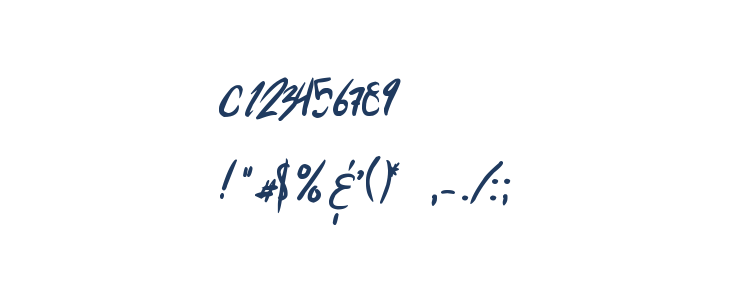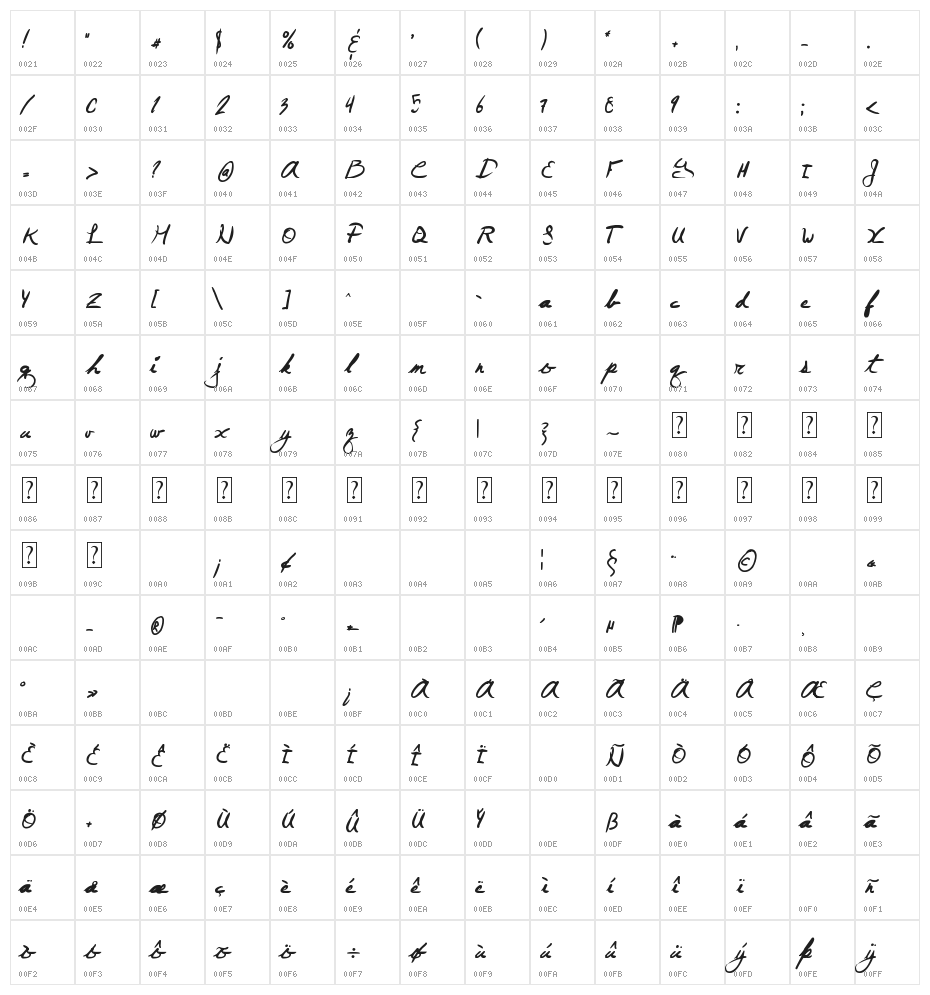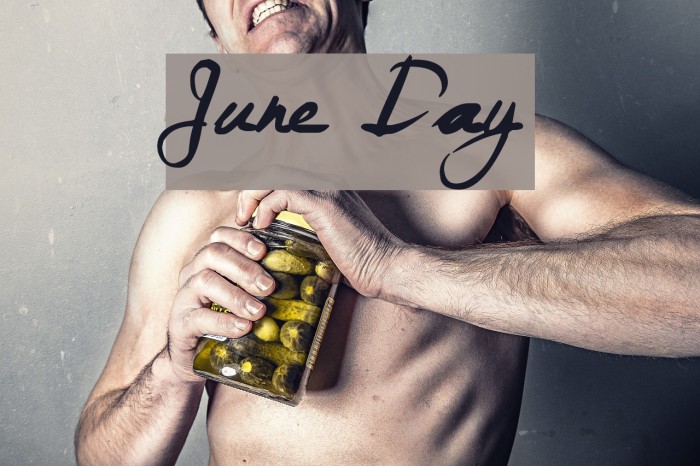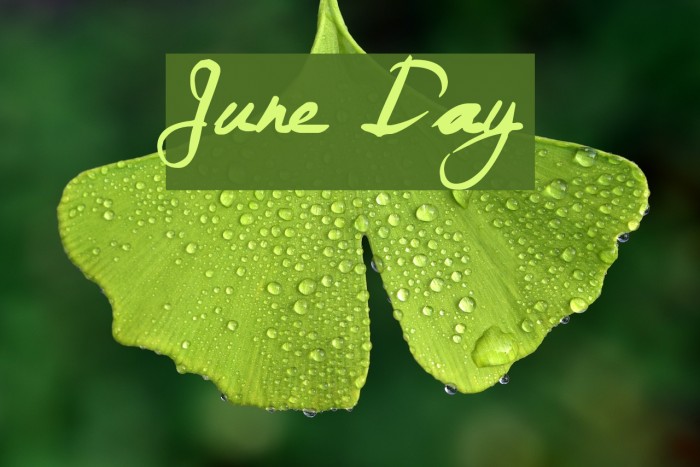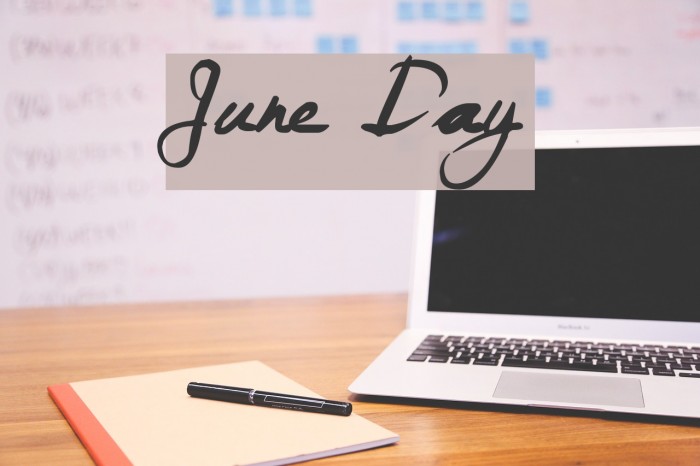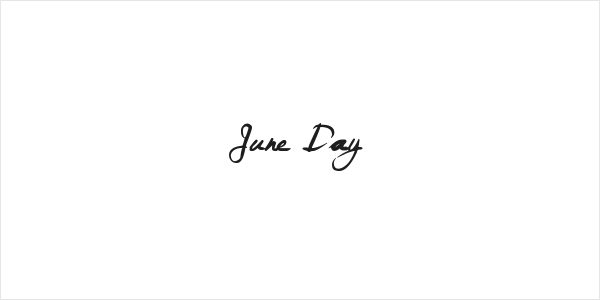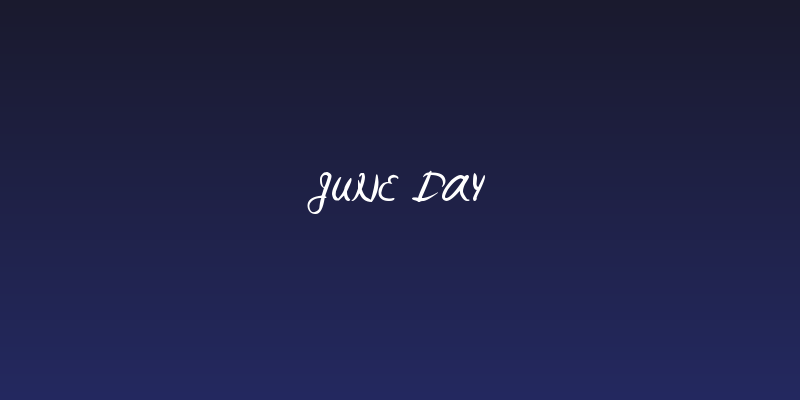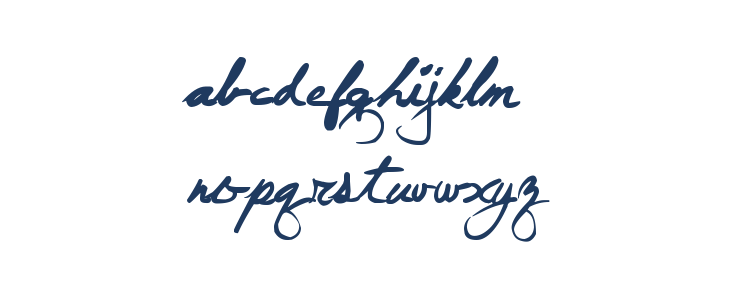
June Day Font
June Day Description
This font exudes a dynamic and expressive style, characterized by its flowing cursive script that mimics natural handwriting. The letters are connected with smooth, sweeping strokes, giving it a fluid and elegant appearance. The uppercase letters are bold and prominent, while the lowercase letters maintain a consistent flow, enhancing readability. The numbers and special characters follow the same cursive style, ensuring uniformity across all characters. This font is perfect for projects that require a personal touch, such as invitations, greeting cards, or artistic branding. Its unique style makes it stand out, adding a touch of sophistication and creativity to any design.
| Proposed Projects | Ideal for invitations, greeting cards, artistic branding, and personal projects. |